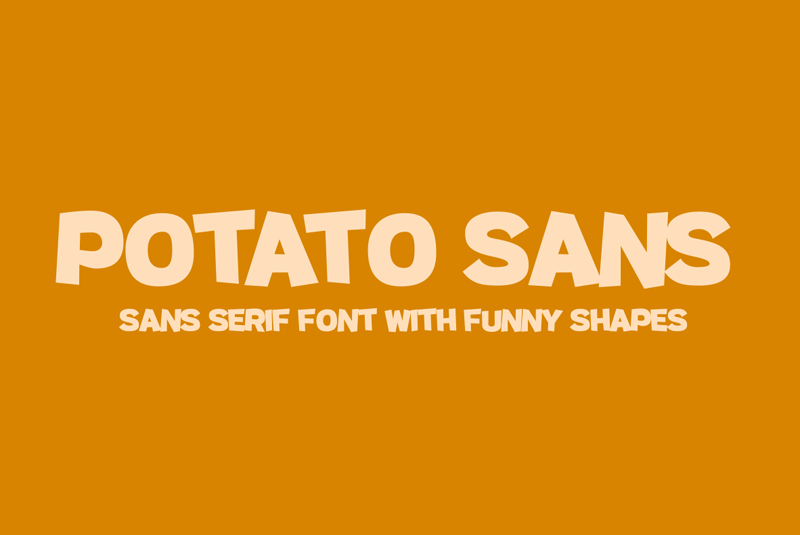
Font name: | Potato Sans |
Author: | 4RM Font |
Note by 4RM Font | |
Made with a funny shape, making this font suitable for use in graphic designs related to unique things. This font is available in 2 styles namely bold and black. |